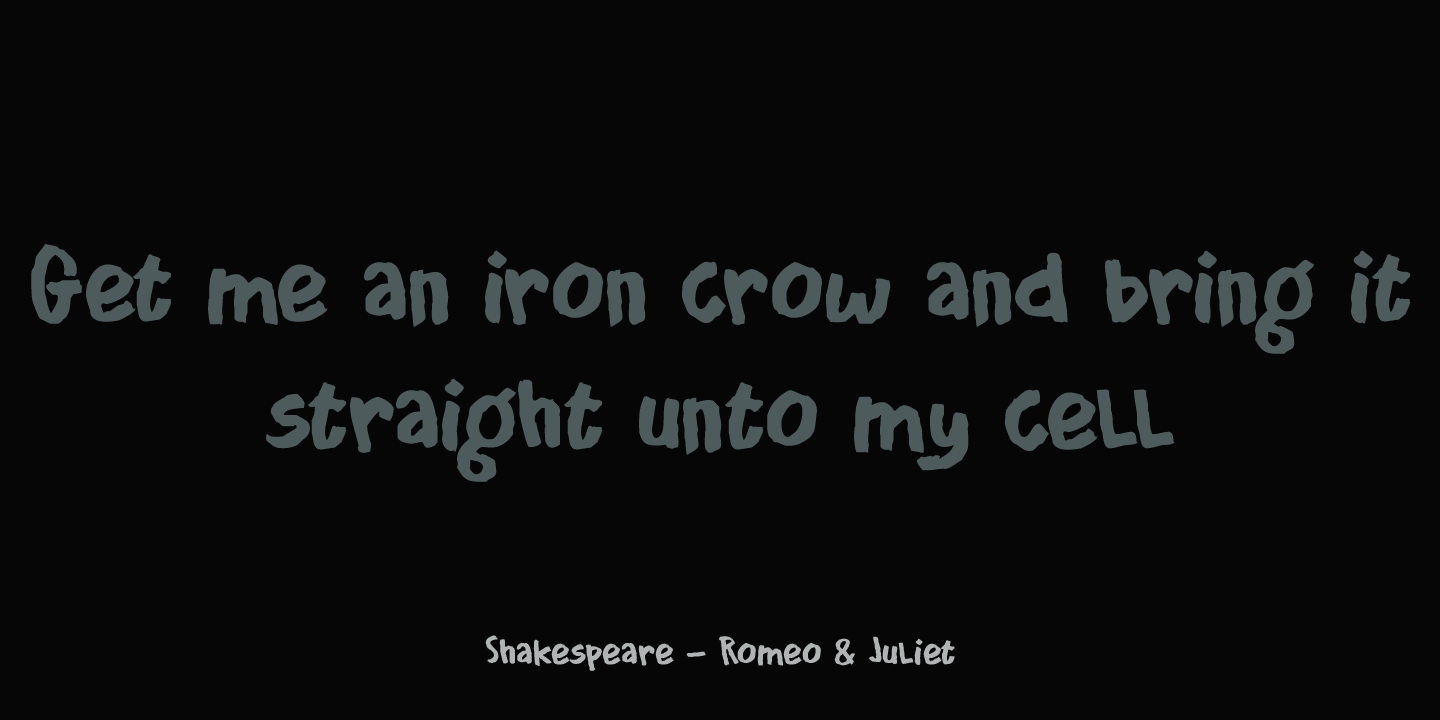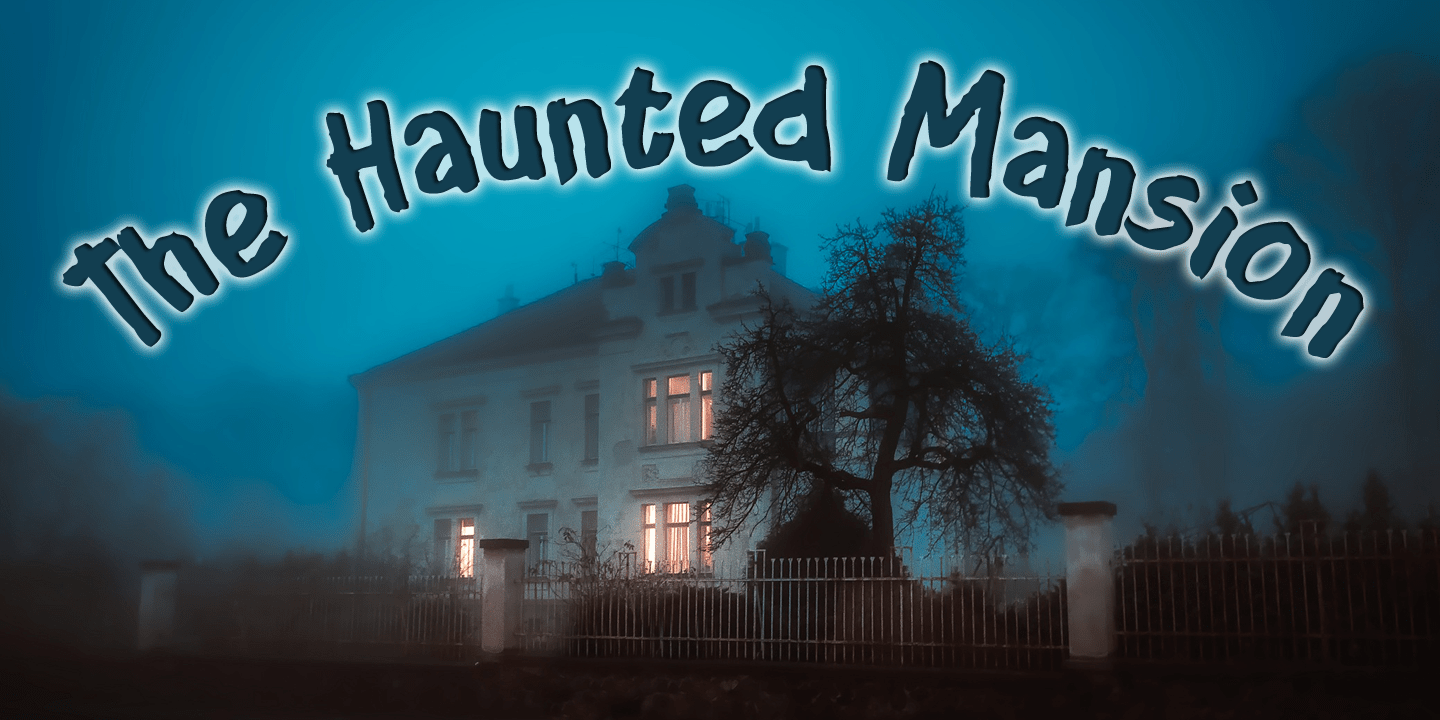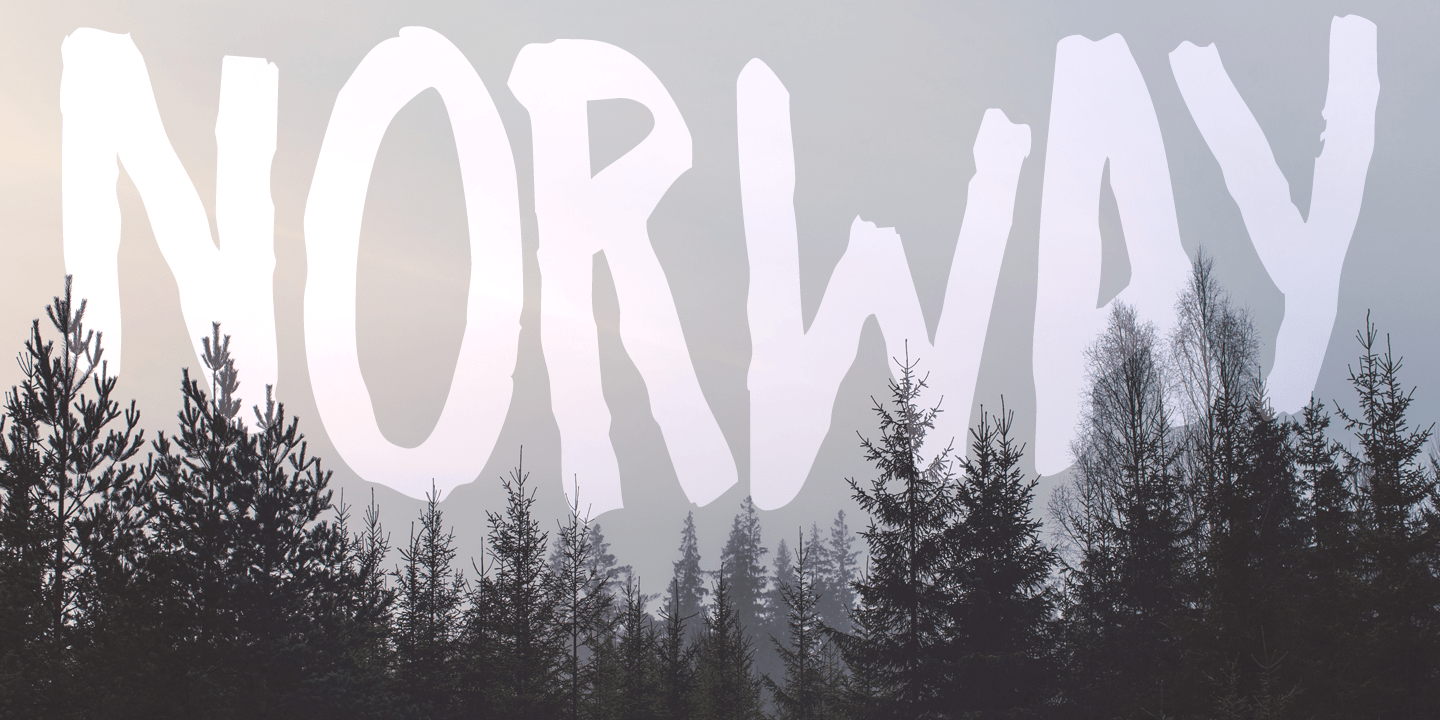
About Crowbar
Technically a crowbar is a straight metal rod used for digging. The tool I had in mind when I named this font is called a jemmy or pry bar, but I guess I liked the name crowbar better. Crowbar font, like its namesake, is a very useful tool: its brush-like…